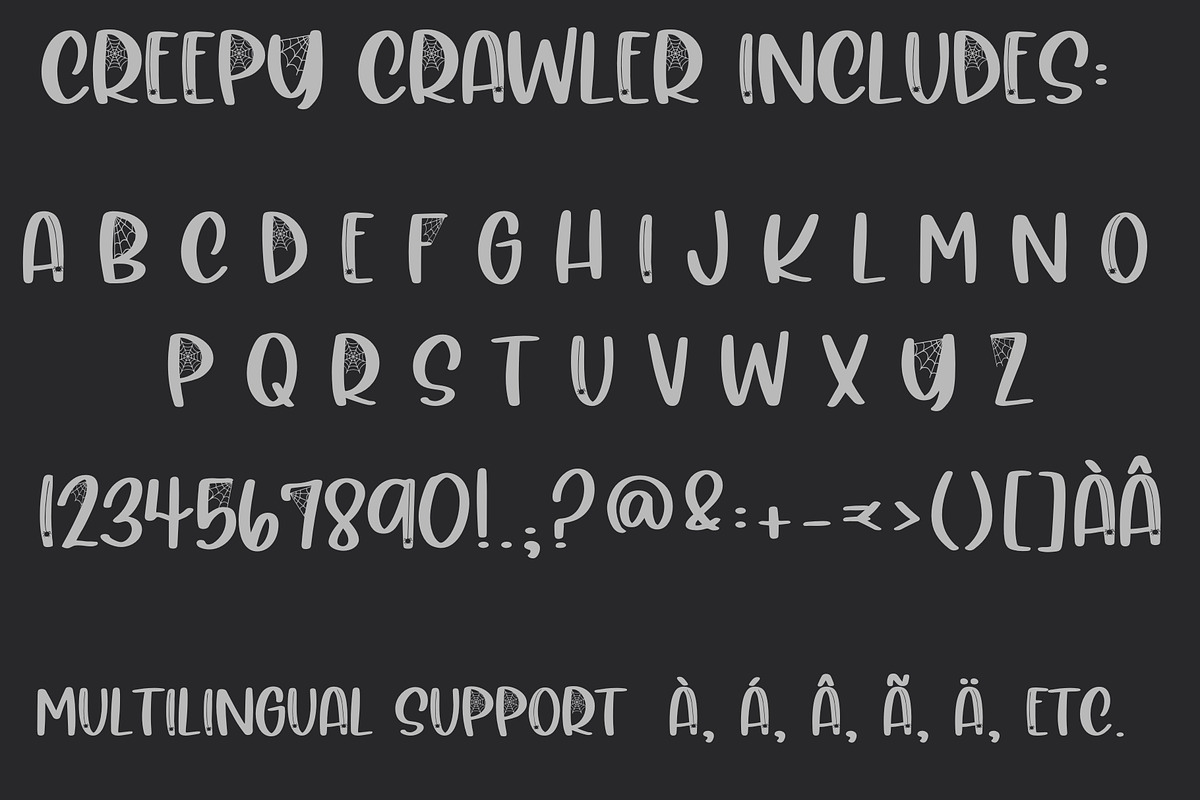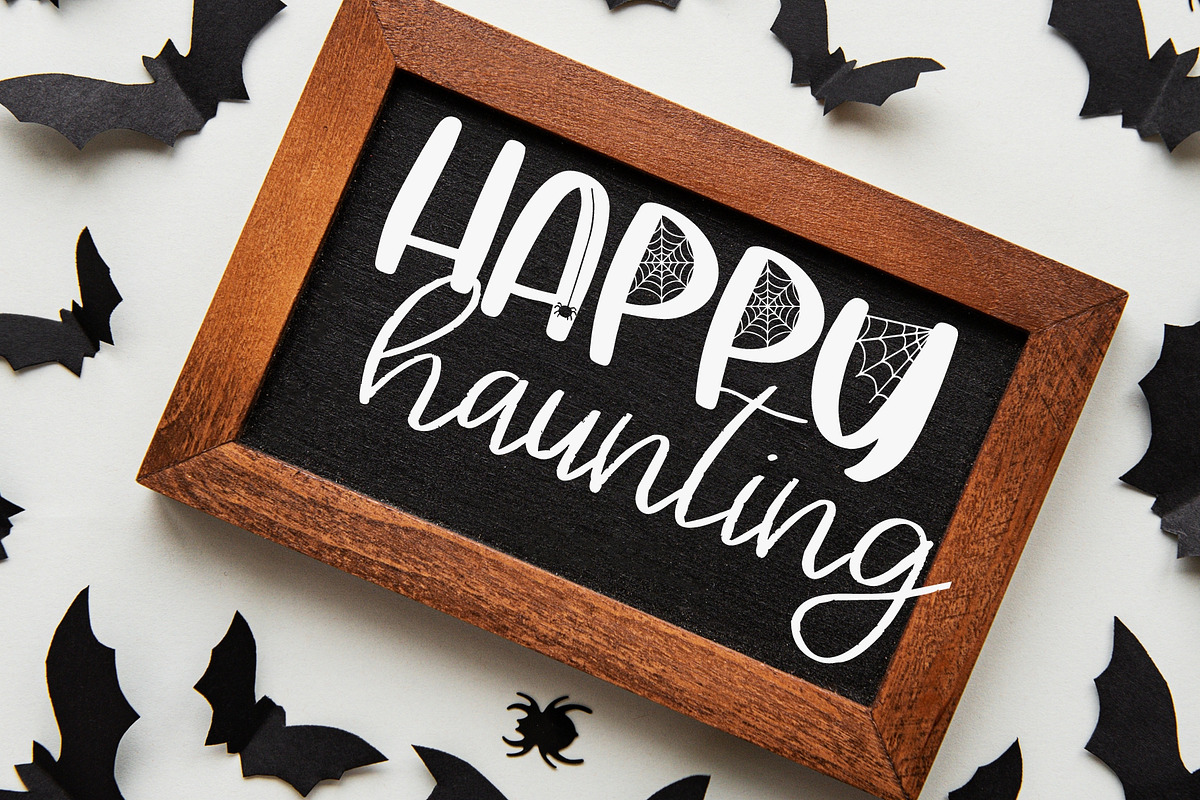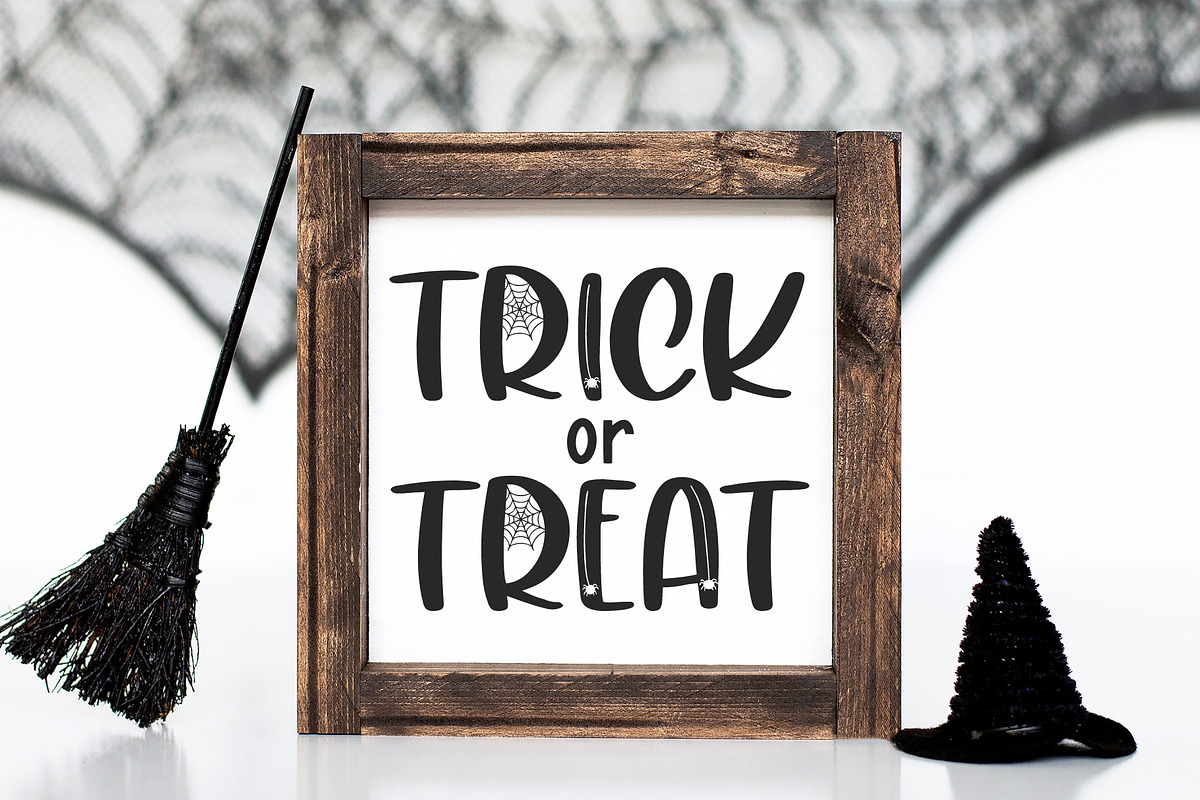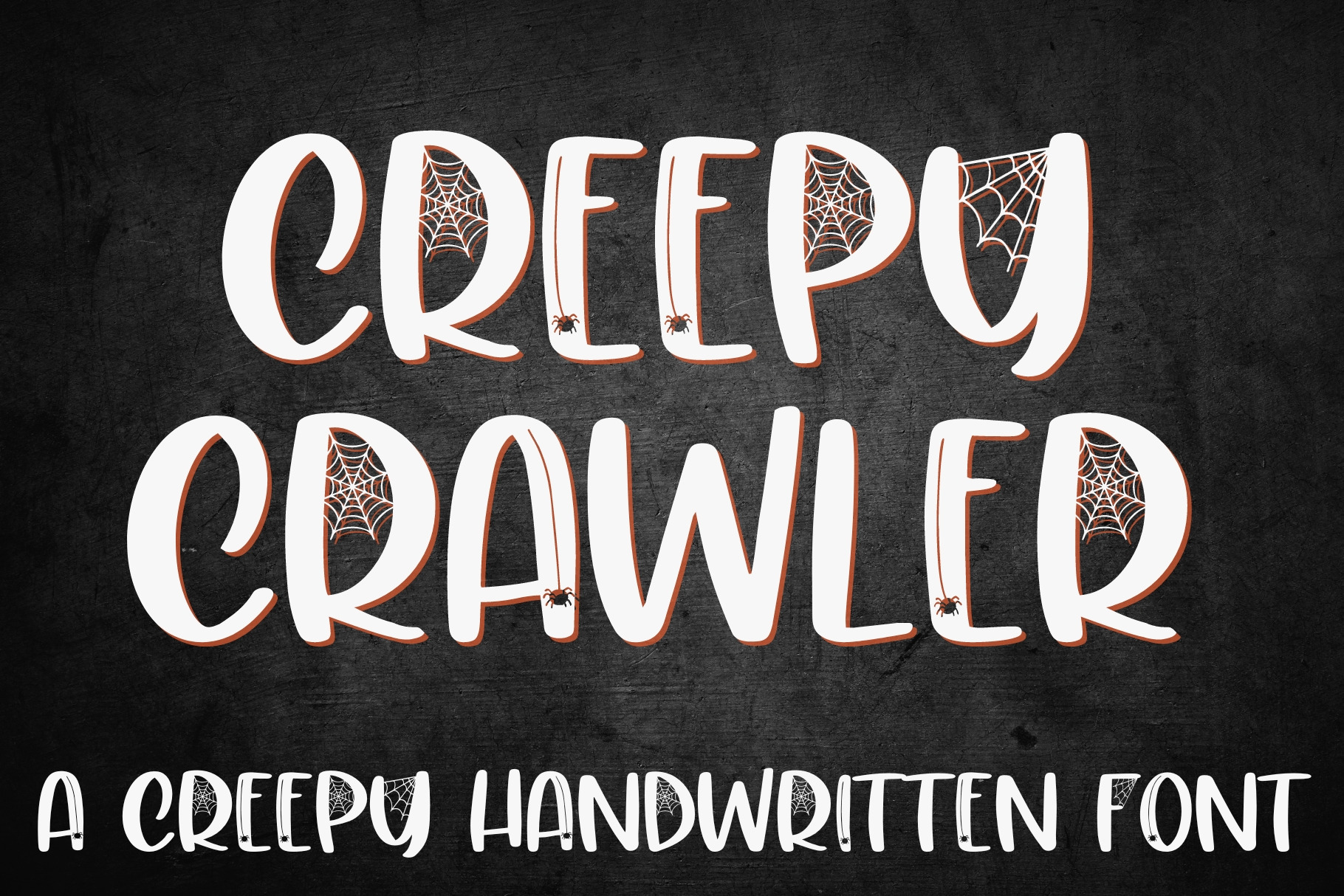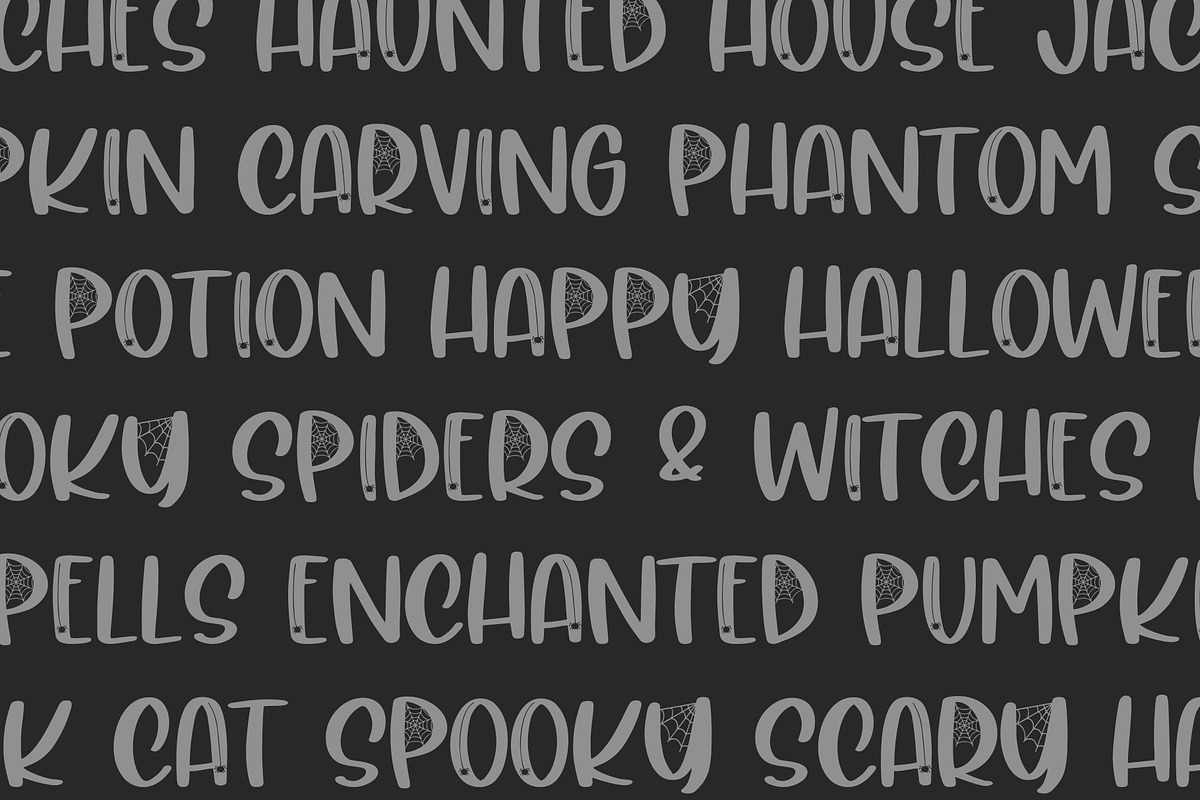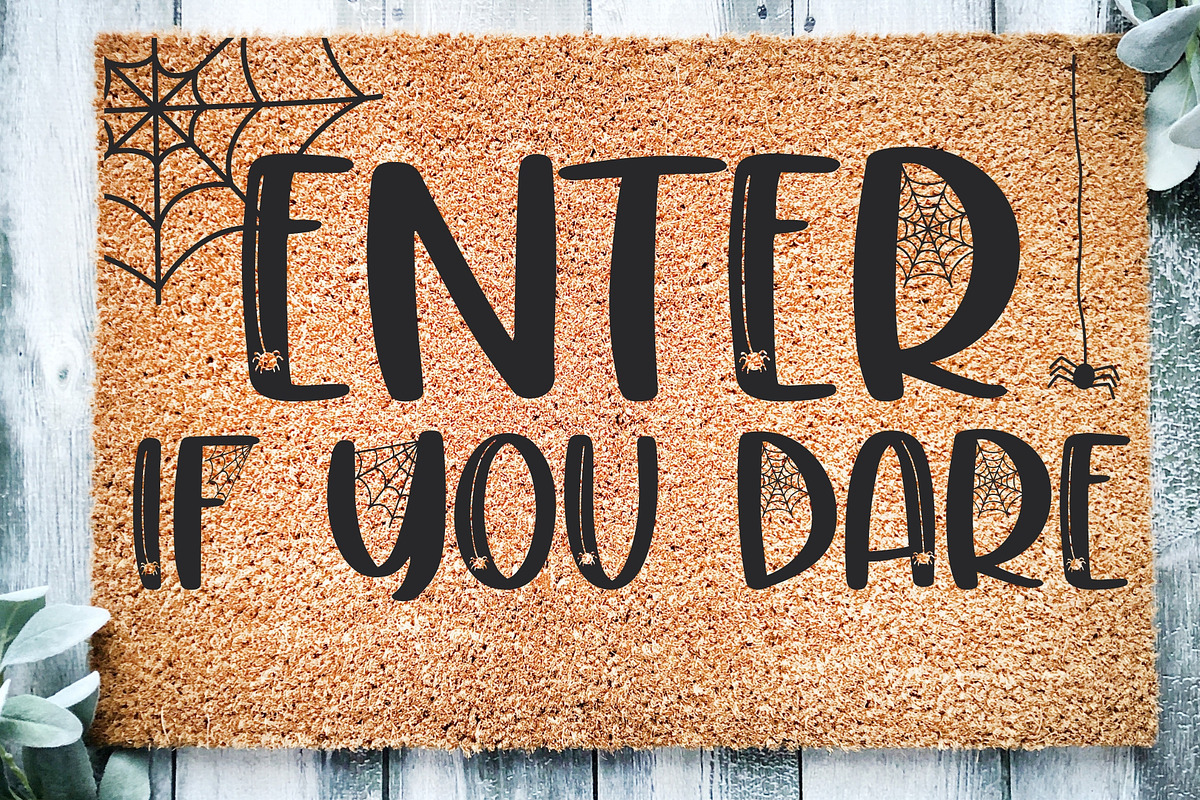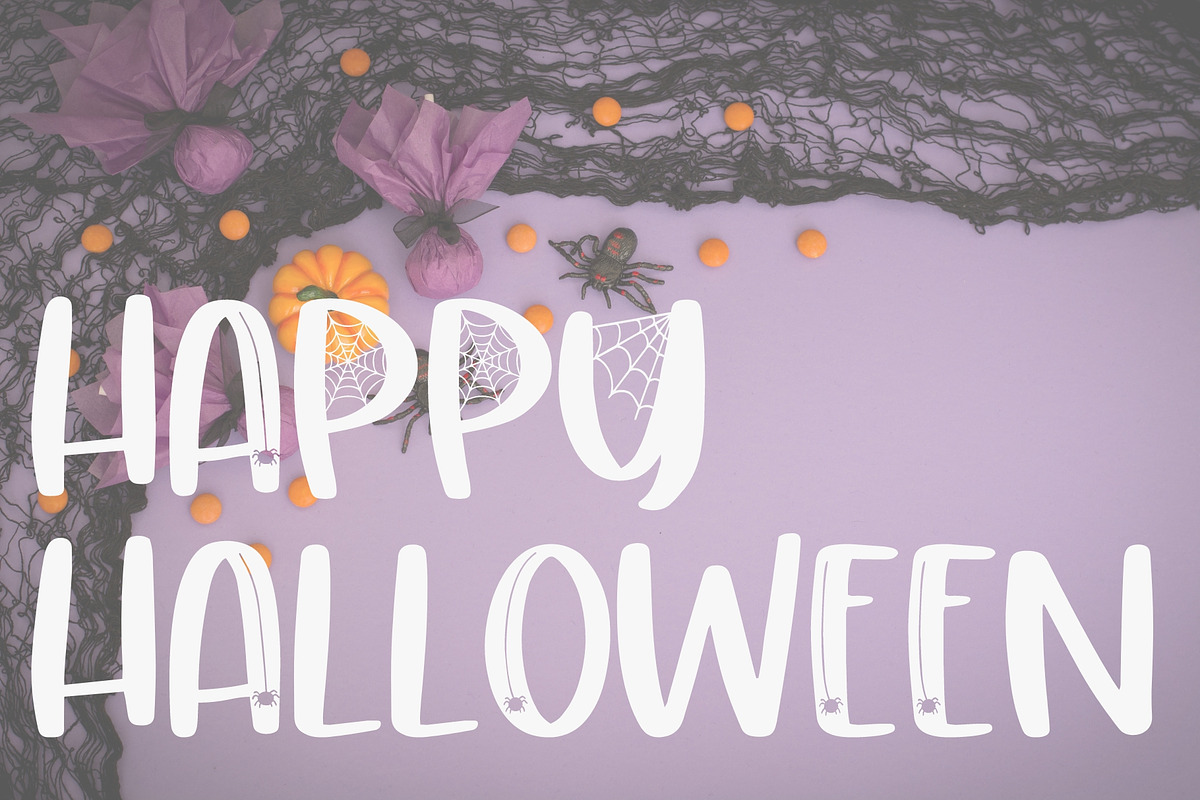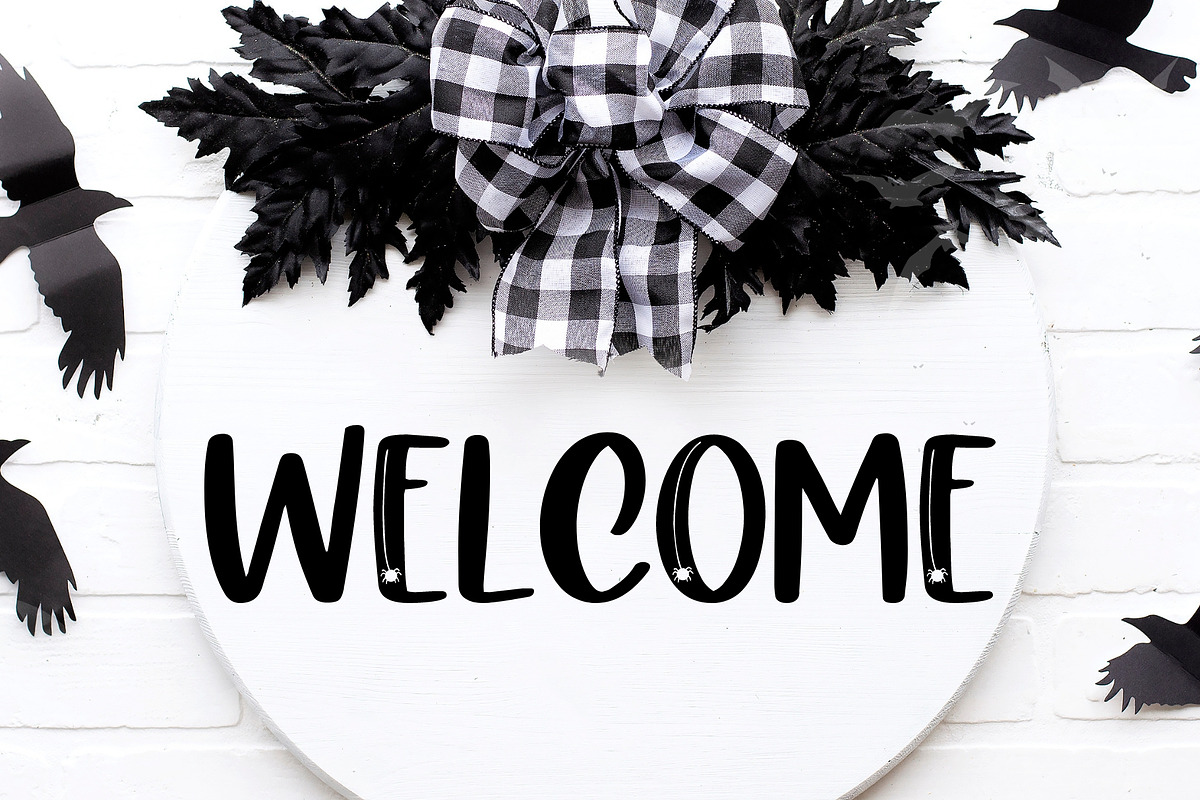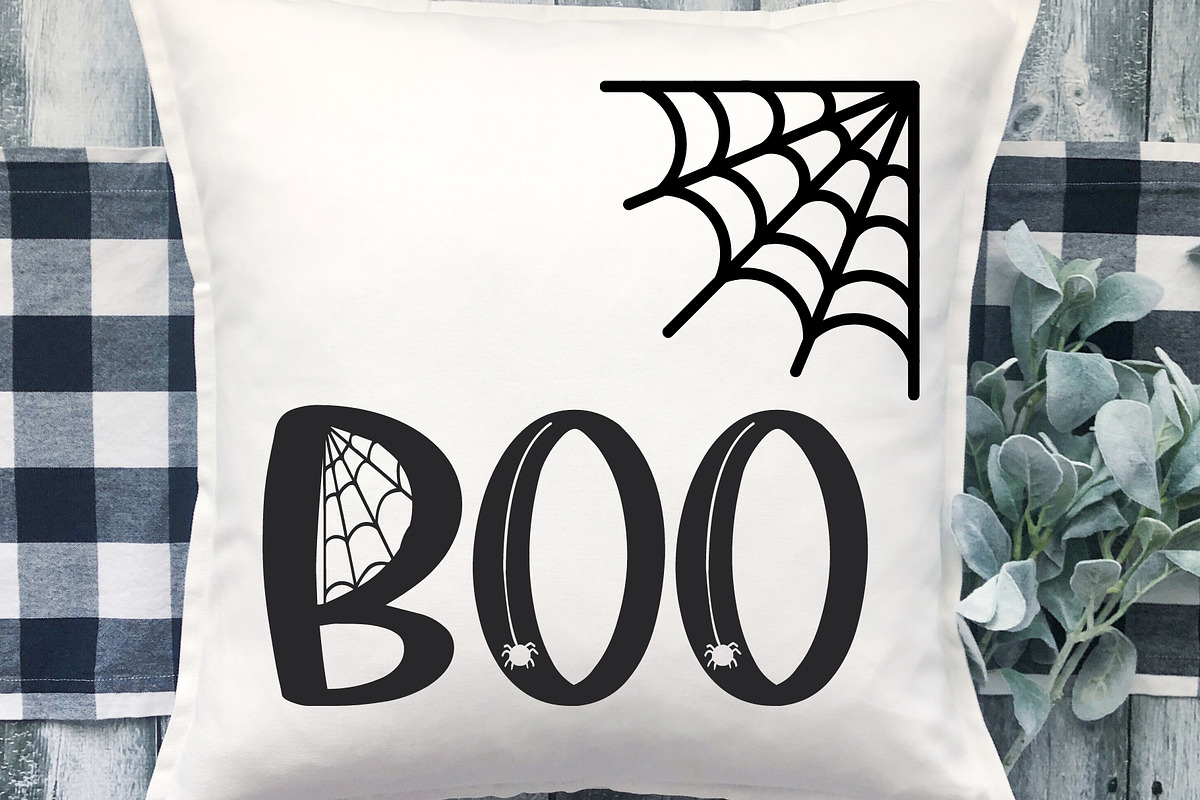
Creepy Crawler, Cute Halloween Font
Introducing Creepy Crawler, our buggy Halloween Handwritten font for Cricut & more, perfect for all your spooky projects! This meticulously crafted handwritten font captures the essence of Halloween with its playful yet eerie vibe. Whether you're creating invitations, banners, or decorations, our Handwritten Font will add a touch of magic to your designs. Our Creepy spider handwriting font is compatible with Cricut SVGs, Goodnotes, Procreate, and many other programs. Its fun handwriting style is sure to make your projects stand out. Get creative with our exclusive Cricut Fonts and let your imagination run wild this Halloween season. Embrace the spirit of the holiday with our remarkable Halloween Font!